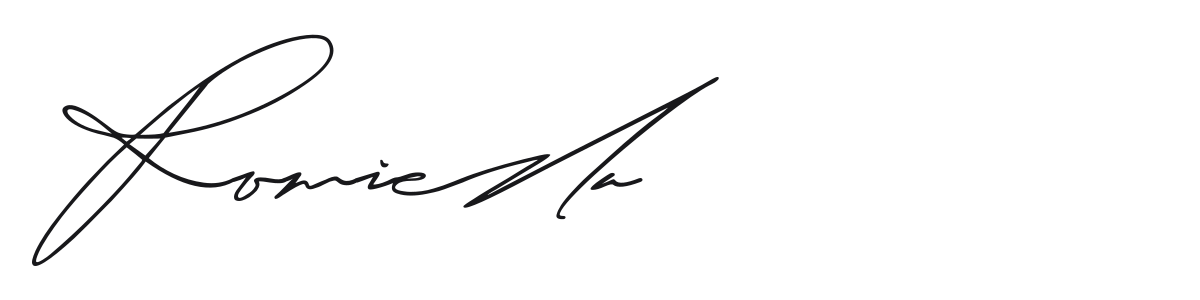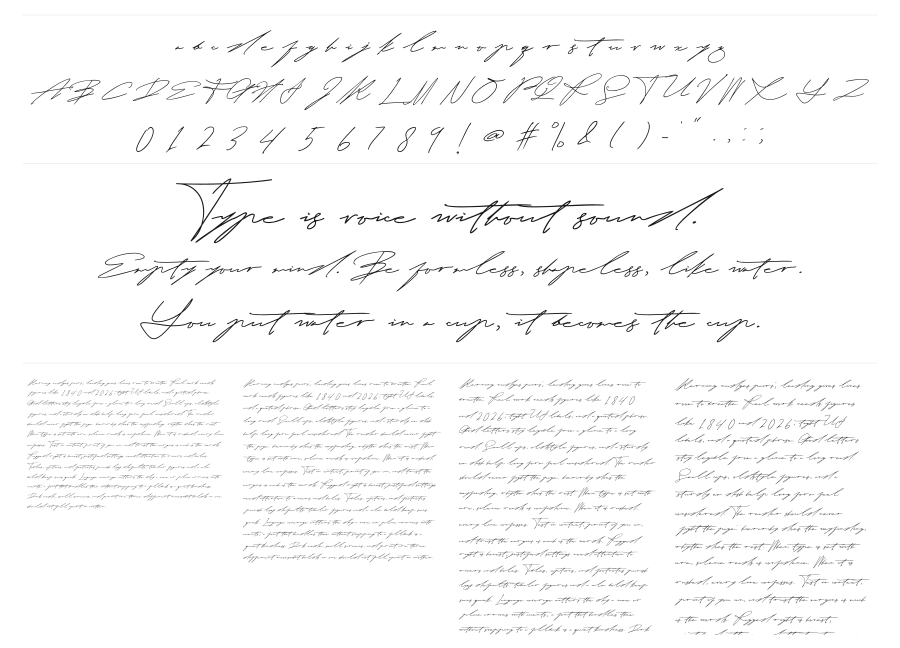
Romieda
Romieda is a flowing casual script that mimics the look of genuine handwritten pen signatures. Its thin, loosely connected strokes and sweeping ascenders give it an effortless, personal quality that feels both relaxed and refined. Strong at large sizes for logotypes, invitations, and lifestyle branding.